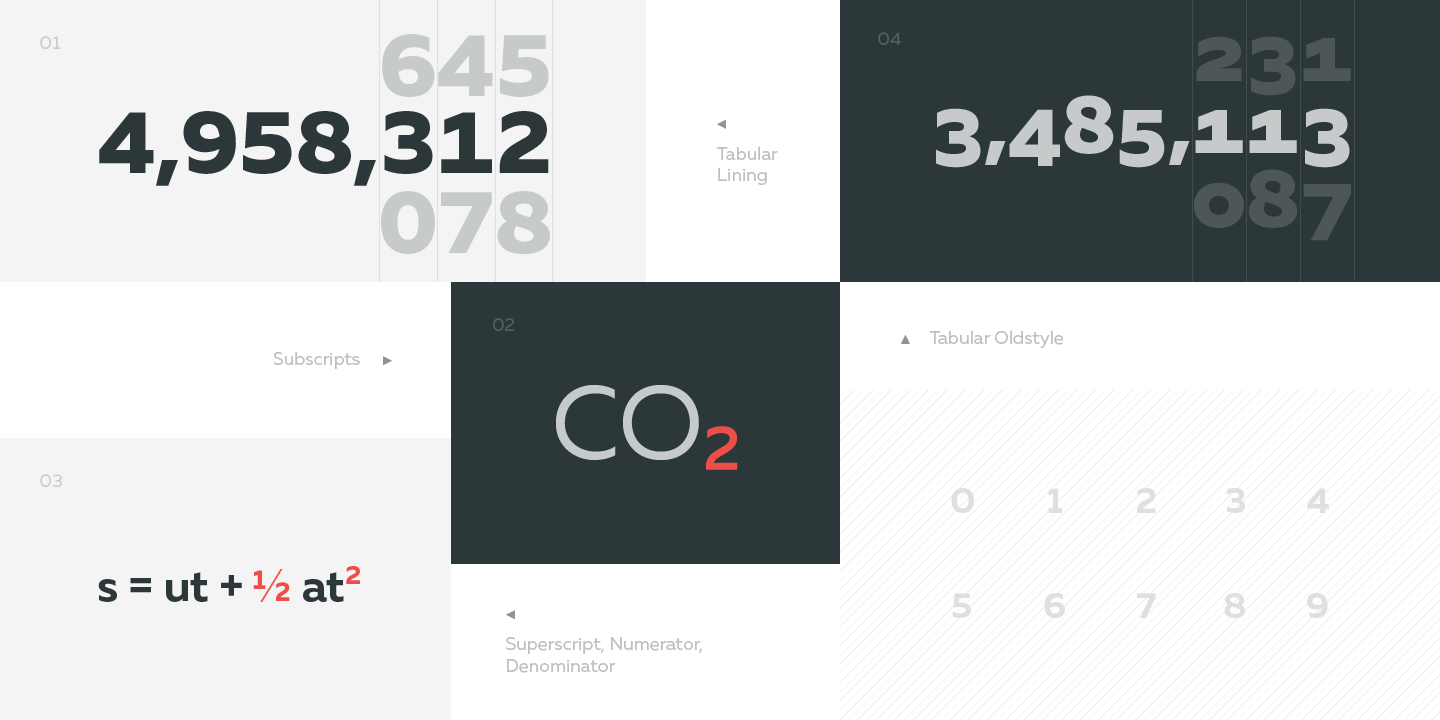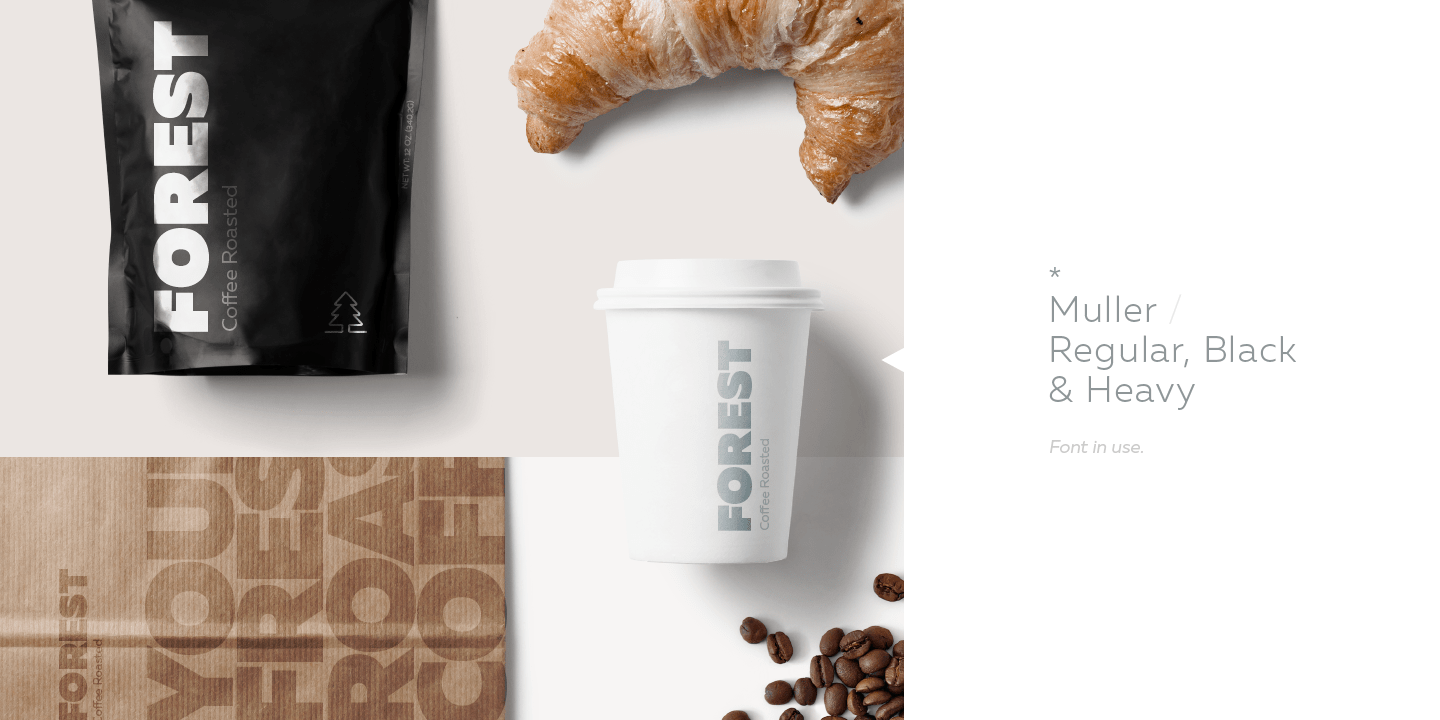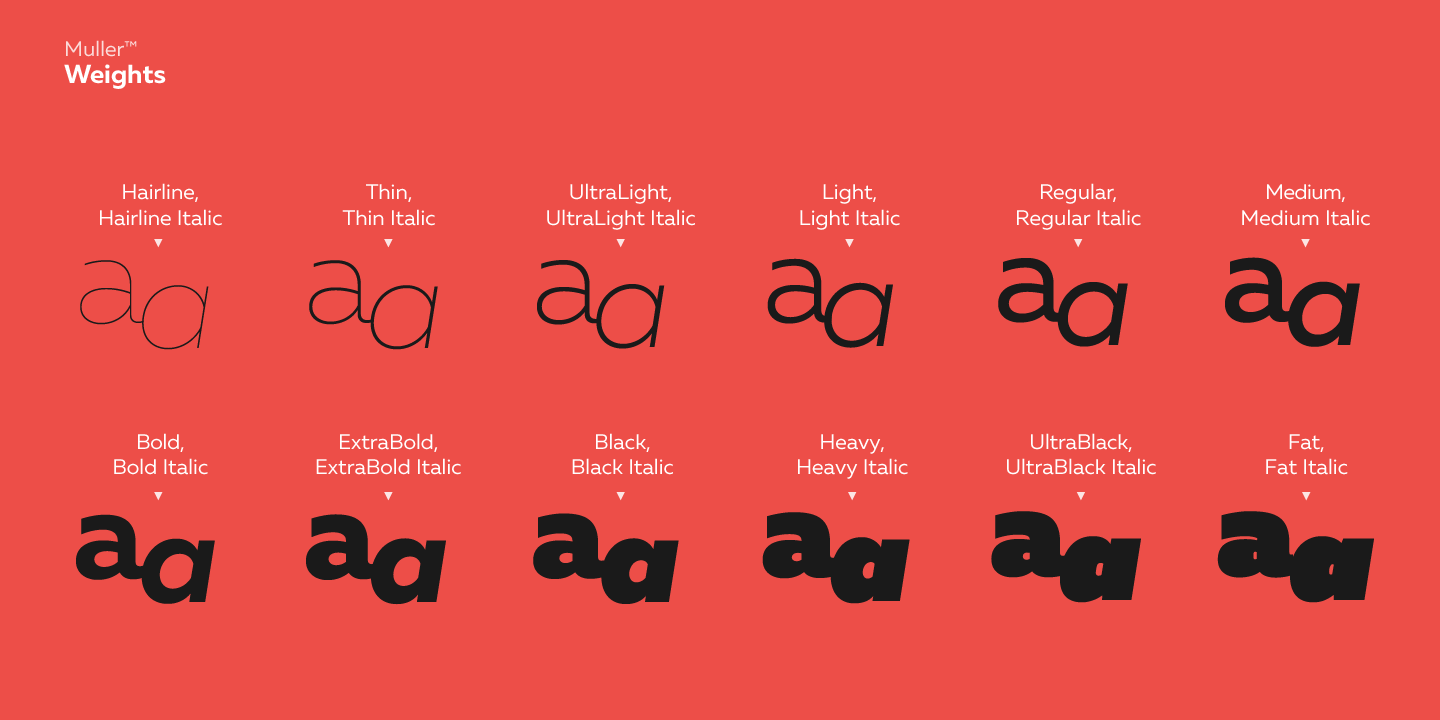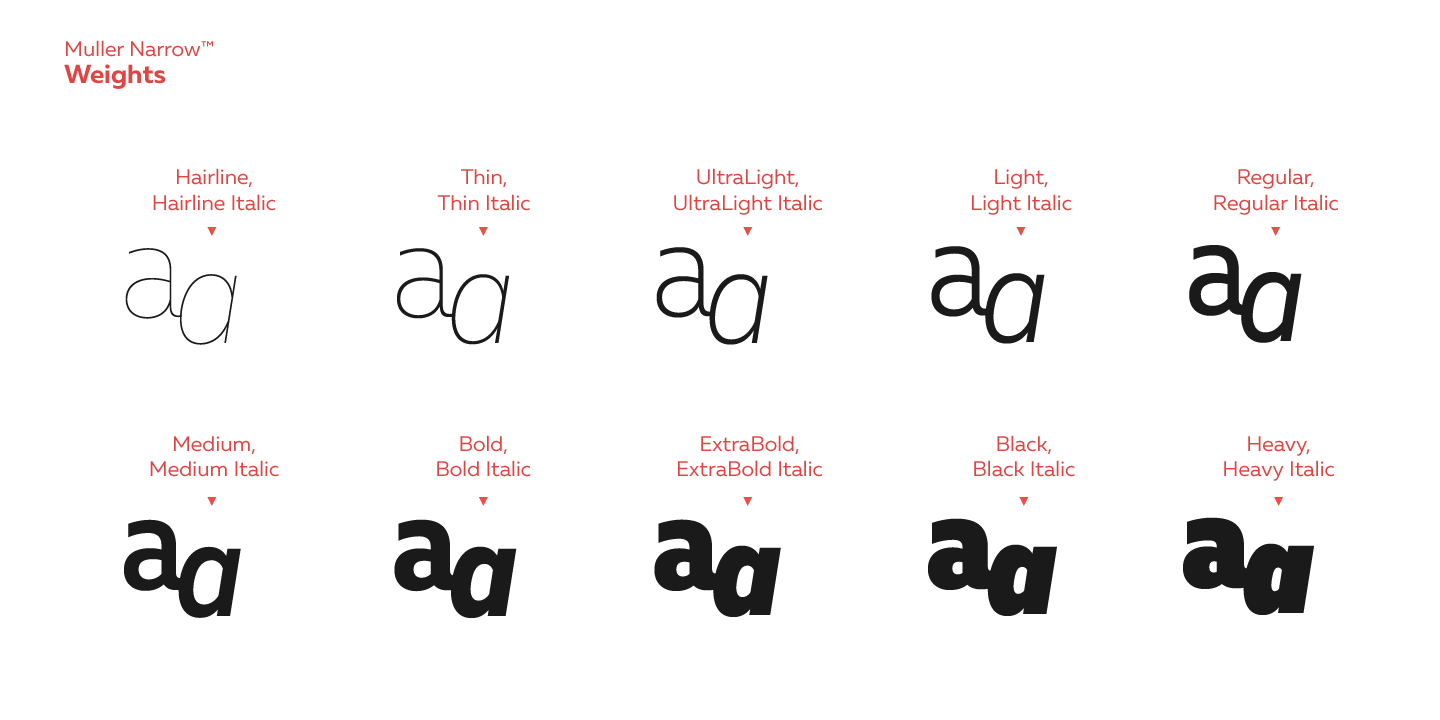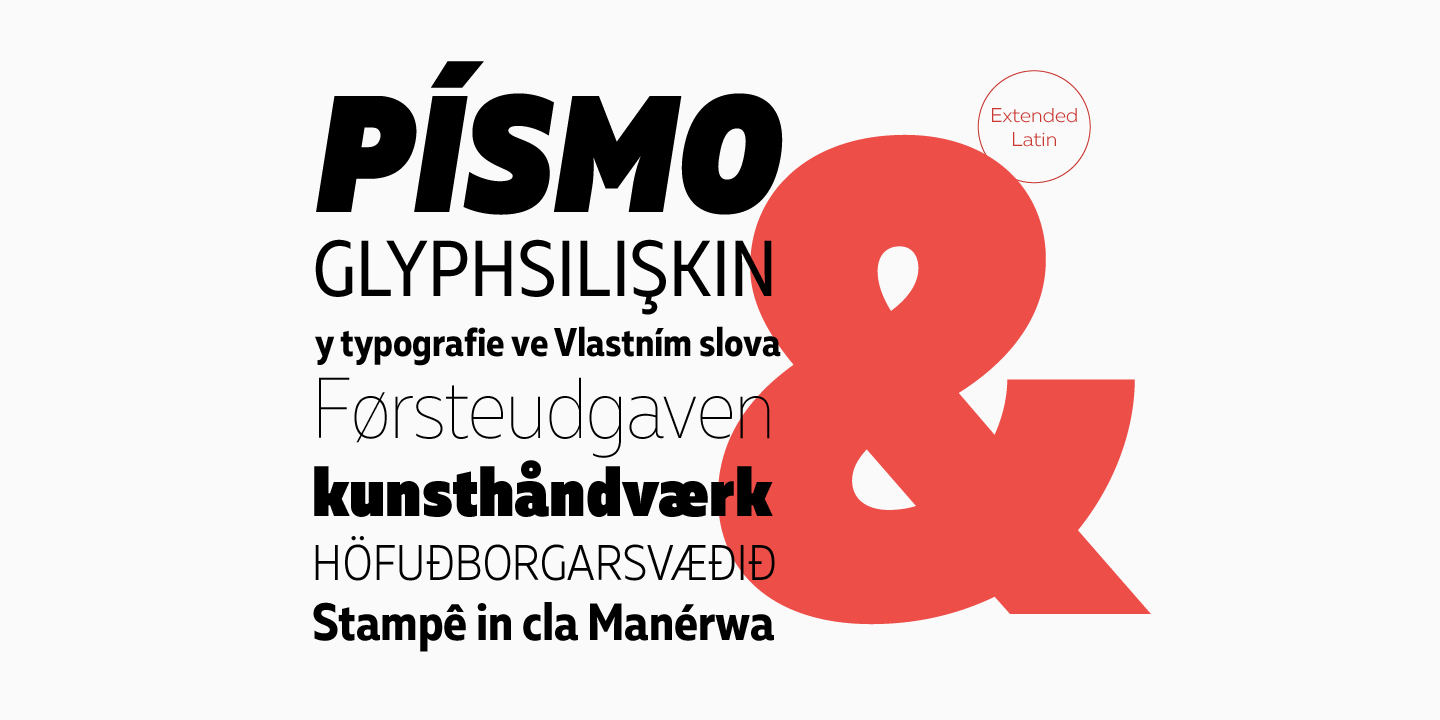
About Muller
The very first sketches of Muller were made about four years ago. In the process they changed to the point where they had nothing in common with the original idea. As it is with most work we do, when we seek perfection, changes are inevitable. It was…